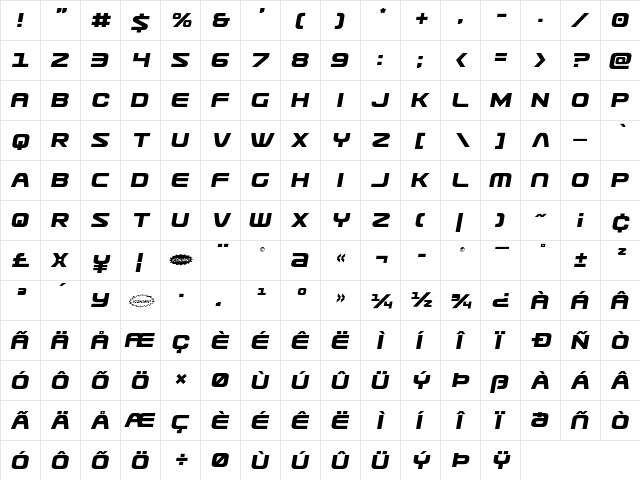
Usuzi Semi-Italic Semi-Italic
Design Context for Usuzi Semi-Italic Typeface
Usuzi Semi-Italic takes a measured approach to typography — its balanced proportions and neutral character make it a reliable workhorse for both digital and print work. The slanted form adds forward momentum and visual energy.
Pro Tip: Use Usuzi Semi-Italic for emphasis, pull quotes, and subheadings where its slanted energy can add rhythm to the layout.